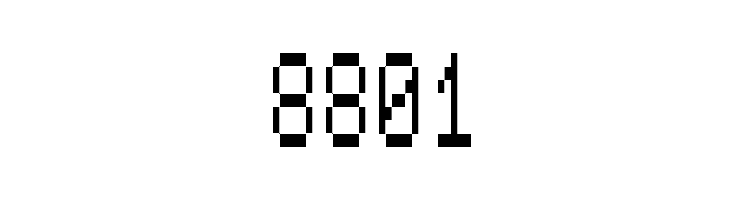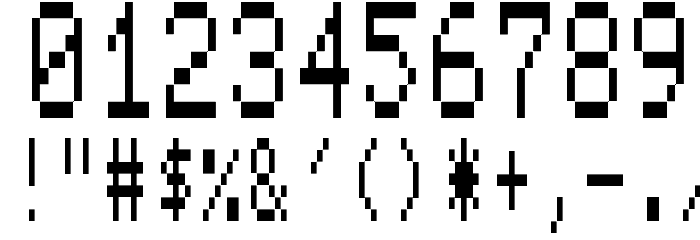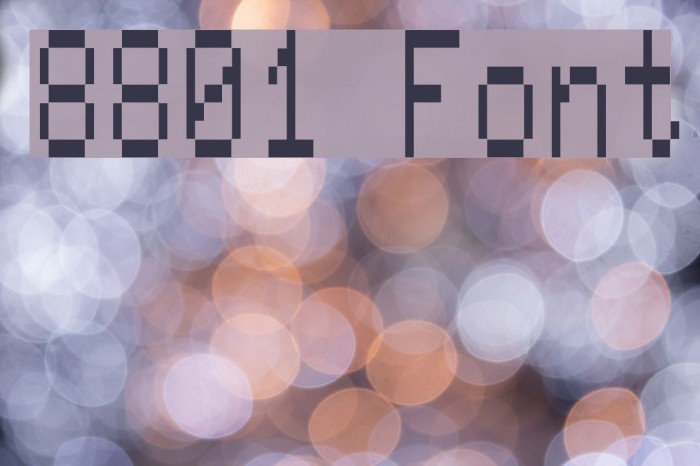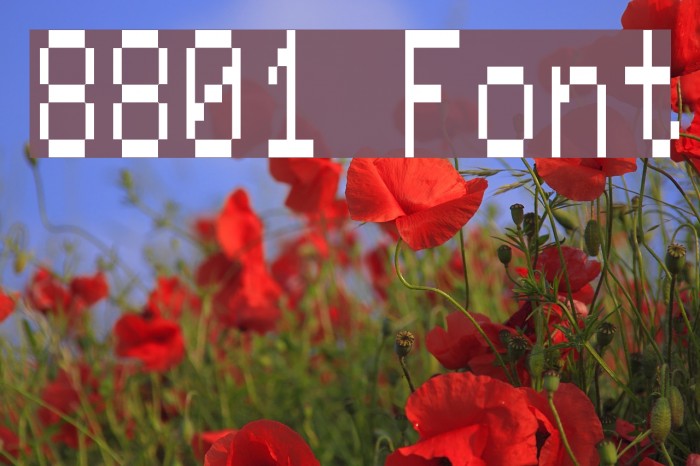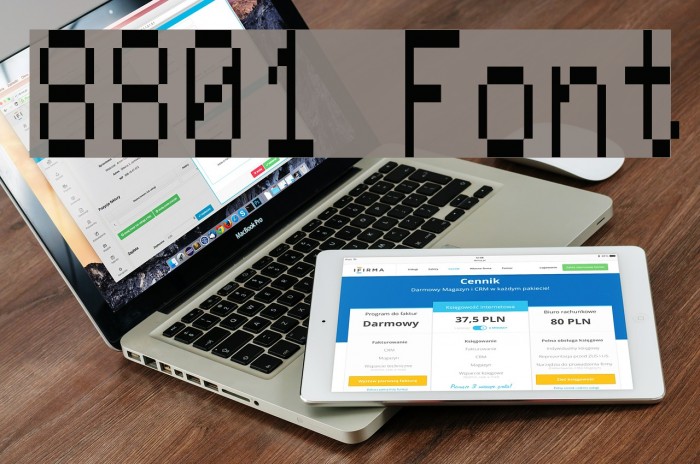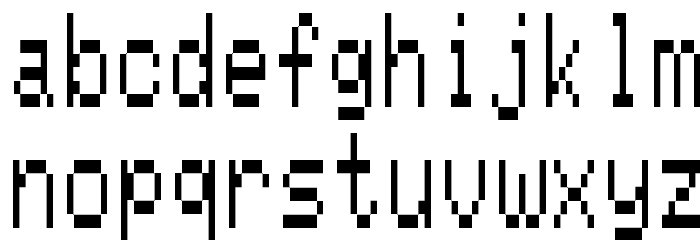
8801 Font
This font features a pixelated, grid-like design reminiscent of early digital displays and retro video games. Each character is composed of small, square blocks, creating a distinctly digital aesthetic. The uppercase and lowercase letters maintain a consistent height, contributing to a uniform appearance. Numbers and special characters follow the same pixelated style, ensuring cohesion across all elements. The font's simplicity and clarity make it easily readable, even at smaller sizes. Its nostalgic feel is perfect for projects aiming to evoke a sense of vintage technology or retro gaming culture.
A pixelated, retro-style font inspired by early digital displays.
• Proposed Projects: Ideal for retro video games, digital art projects, tech-themed posters, and nostalgic branding.
• Overall Style: Vintage
• Use Case: Logos, Headlines, Digital displays